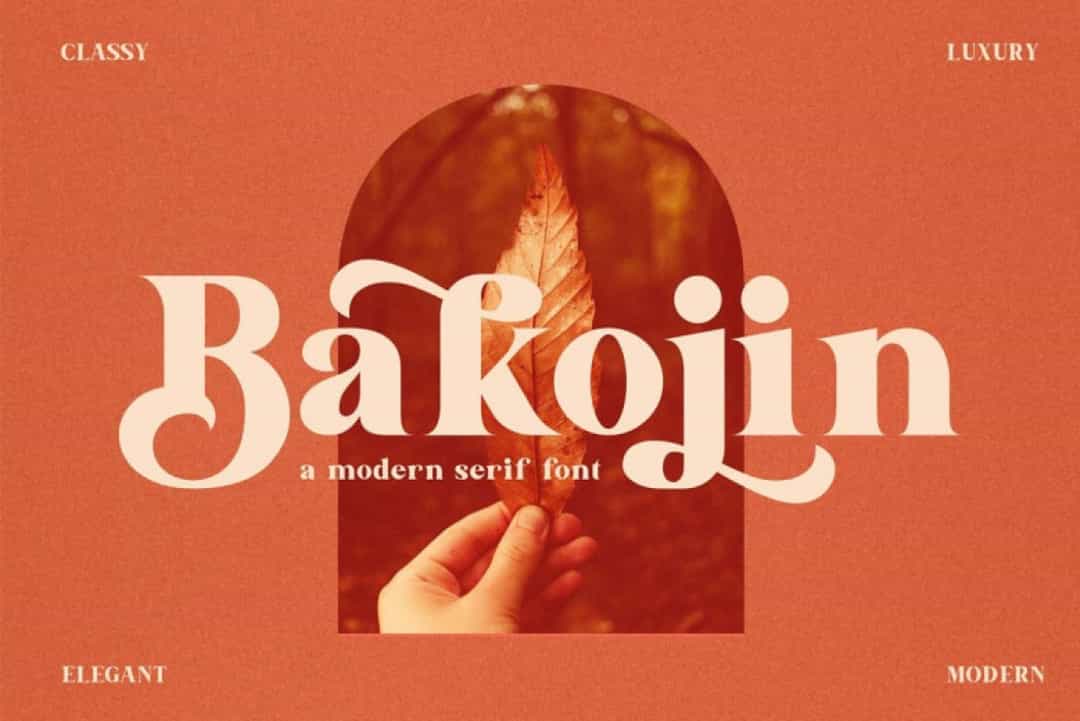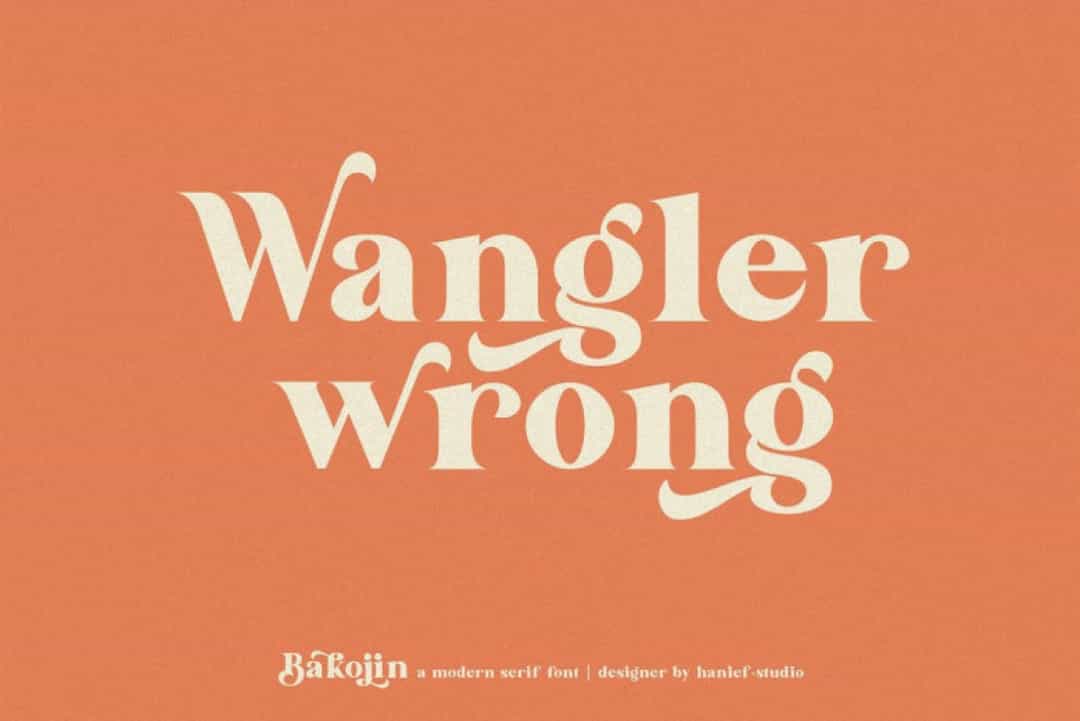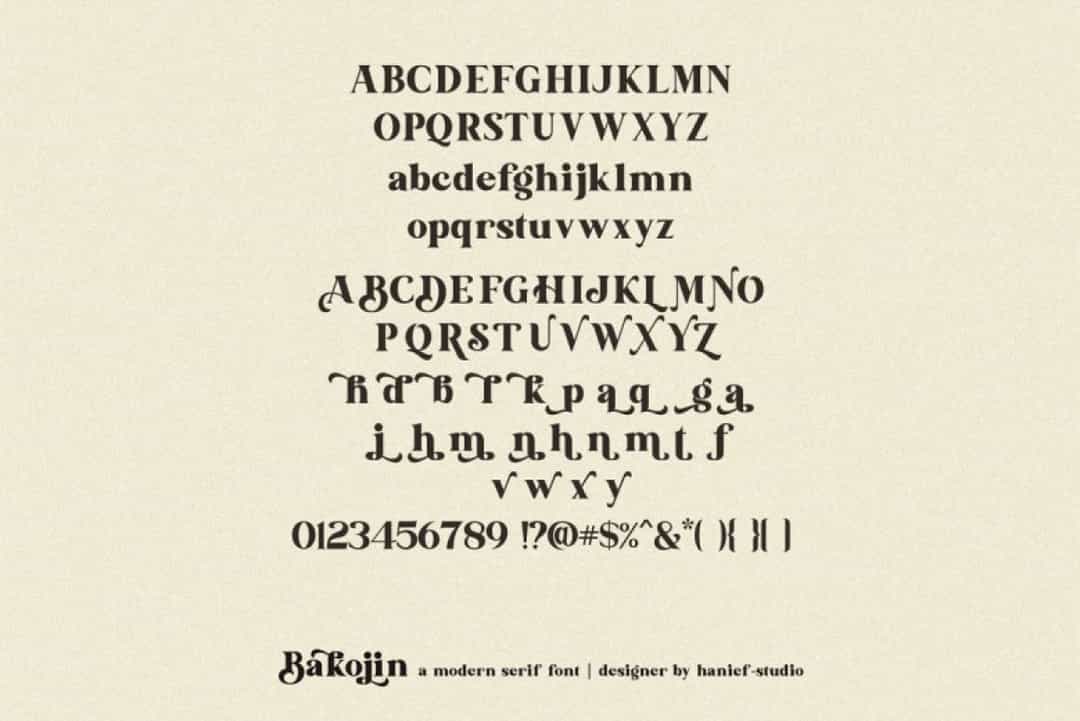
Discover Bakojin Font, part of the Serif collection—a versatile and unique font perfect for adding a personal touch to your projects. Download it for free and enjoy crafting designs with style, from invitations to social media posts. This font is available exclusively for personal use, giving you the freedom to create without limits. Unlock your creativity with Bakojin Font today!
Bakojin Serif Typography Modern serif font featuring serifs. Perfect for logos and names, Bakojin can easily complement other fonts in any project you undertake.